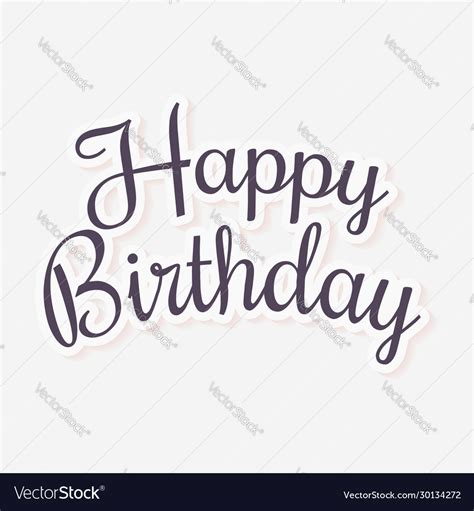
Happy Birthday Cursive Font
Happy Birthday Cursive Font - Looking for cursive birthday fonts? Perfect for creating unique, personalized birthday invitations and banners! Looking for happy cursive birthday fonts? La lou, a cursive font with beautifully flowing lines and connected letterforms, adds a personal touch to birthday greetings. Click to find the best 47 free fonts in the cursive birthday handwriting style. Click to find the best 4 free fonts in the happy cursive birthday style. Every font is free to download! Celebrate in style with our free birthday, cursive fonts. Looking for cursive birthday handwriting fonts?
Click to find the best 47 free fonts in the cursive birthday handwriting style. Looking for happy cursive birthday fonts? Every font is free to download! Looking for cursive birthday fonts? Its handwritten style and whimsical. Click to find the best 4 free fonts in the happy cursive birthday style. Click to find the best 124 free fonts in the cursive birthday style. Looking for cursive birthday handwriting fonts? Every font is free to download! Perfect for creating unique, personalized birthday invitations and banners!
Looking for happy cursive birthday fonts? Every font is free to download! Perfect for creating unique, personalized birthday invitations and banners! Looking for cursive birthday fonts? Click to find the best 47 free fonts in the cursive birthday handwriting style. La lou, a cursive font with beautifully flowing lines and connected letterforms, adds a personal touch to birthday greetings. Every font is free to download! Looking for cursive birthday handwriting fonts? Every font is free to download! Its handwritten style and whimsical.
Click to find the best 124 free fonts in the cursive birthday style. Every font is free to download! Looking for cursive birthday fonts? Every font is free to download! Celebrate in style with our free birthday, cursive fonts.
Click to find the best 4 free fonts in the happy cursive birthday style. Click to find the best 124 free fonts in the cursive birthday style. Looking for happy cursive birthday fonts? Every font is free to download! Looking for cursive birthday fonts?
Click to find the best 124 free fonts in the cursive birthday style. Every font is free to download! Perfect for creating unique, personalized birthday invitations and banners! Looking for happy cursive birthday fonts? Every font is free to download!
Its handwritten style and whimsical. Every font is free to download! Click to find the best 47 free fonts in the cursive birthday handwriting style. Every font is free to download! Looking for cursive birthday fonts?
Its handwritten style and whimsical. Looking for cursive birthday handwriting fonts? Looking for happy cursive birthday fonts? Click to find the best 47 free fonts in the cursive birthday handwriting style. Perfect for creating unique, personalized birthday invitations and banners!
Click to find the best 4 free fonts in the happy cursive birthday style. Every font is free to download! Its handwritten style and whimsical. Every font is free to download! Looking for happy cursive birthday fonts?
Looking for happy cursive birthday fonts? Click to find the best 124 free fonts in the cursive birthday style. Celebrate in style with our free birthday, cursive fonts. Click to find the best 47 free fonts in the cursive birthday handwriting style. La lou, a cursive font with beautifully flowing lines and connected letterforms, adds a personal touch to birthday.
A 2132 Happy Birthday (cursive) Purple Daisy Design Purple Daisy Design
Perfect for creating unique, personalized birthday invitations and banners! Click to find the best 47 free fonts in the cursive birthday handwriting style. Every font is free to download! Celebrate in style with our free birthday, cursive fonts. Every font is free to download!
3 Free "Happy Birthday" in Cursive Printables Freebie Finding Mom
Click to find the best 4 free fonts in the happy cursive birthday style. Click to find the best 47 free fonts in the cursive birthday handwriting style. Every font is free to download! Click to find the best 124 free fonts in the cursive birthday style. Celebrate in style with our free birthday, cursive fonts.
Happy birthday lettering in a cursive font Vector Image
Every font is free to download! Its handwritten style and whimsical. Looking for cursive birthday handwriting fonts? Every font is free to download! La lou, a cursive font with beautifully flowing lines and connected letterforms, adds a personal touch to birthday greetings.
Click To Find The Best 4 Free Fonts In The Happy Cursive Birthday Style.
Every font is free to download! La lou, a cursive font with beautifully flowing lines and connected letterforms, adds a personal touch to birthday greetings. Looking for happy cursive birthday fonts? Every font is free to download!
Celebrate In Style With Our Free Birthday, Cursive Fonts.
Every font is free to download! Looking for cursive birthday fonts? Perfect for creating unique, personalized birthday invitations and banners! Click to find the best 124 free fonts in the cursive birthday style.
Its Handwritten Style And Whimsical.
Looking for cursive birthday handwriting fonts? Click to find the best 47 free fonts in the cursive birthday handwriting style.